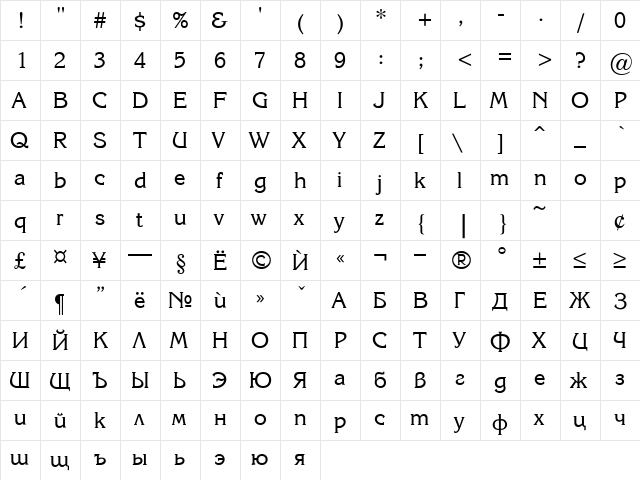
Karina Regular Font Preview
Karina Regular
Karina Regular Font Details
Design Context for Karina Typeface
Karina offers clean, dependable letterforms without strong stylistic allegiance, making it a practical choice for designers who need flexibility.
Pro Tip: Pair Karina with a font of contrasting weight or personality to build a more expressive typographic hierarchy.